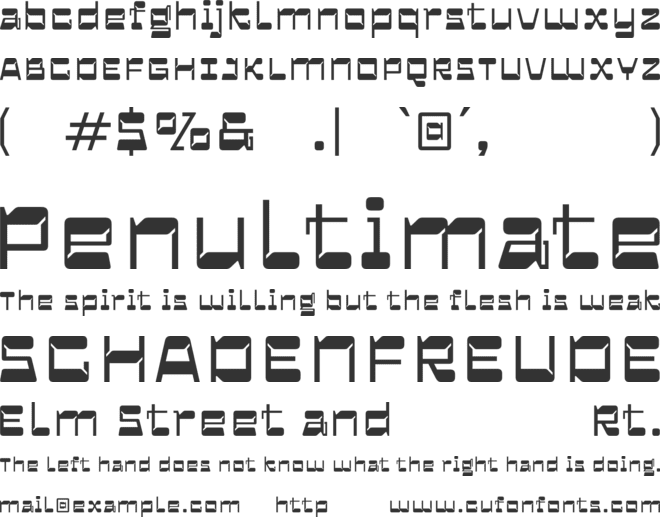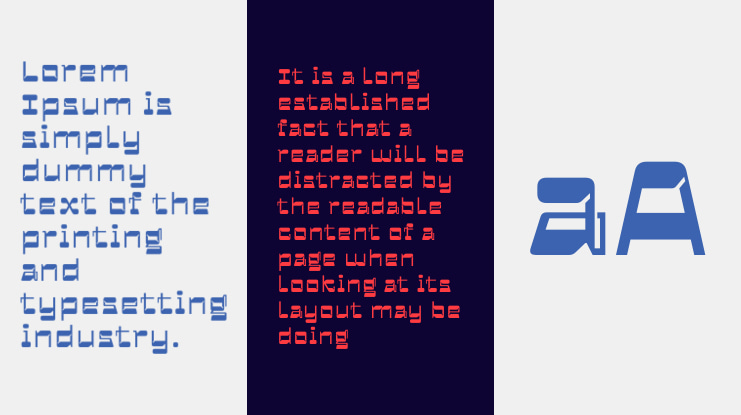
UT Xinka Trial Font
Universitype Foundry
UT Xinka brings a quirky, futuristic twist to the grid-based world of reverse-contrast display fonts. Every stroke feels intentional: chunky forms, unexpected angle cuts, and a rhythm that turns even simple words into bold visual statements.